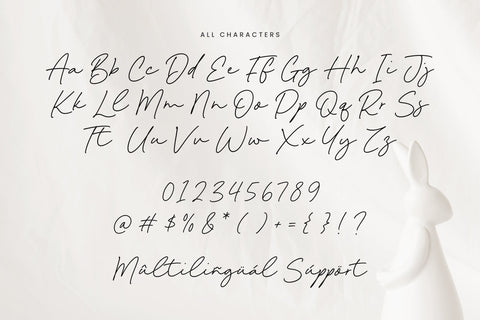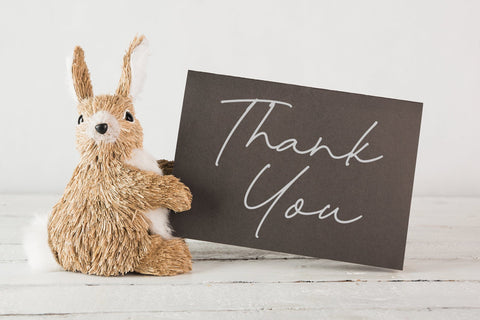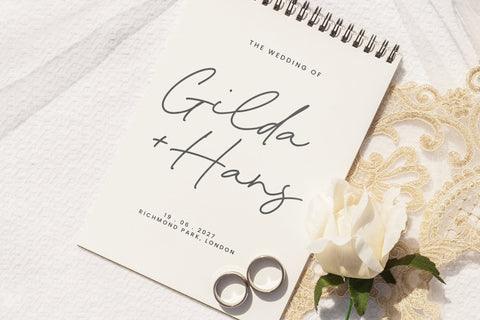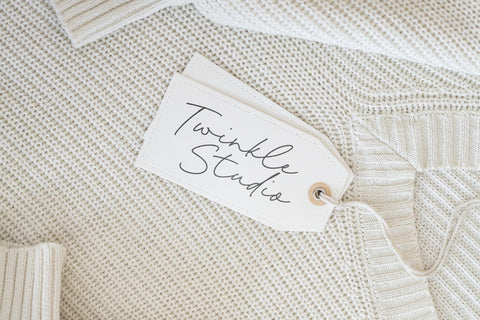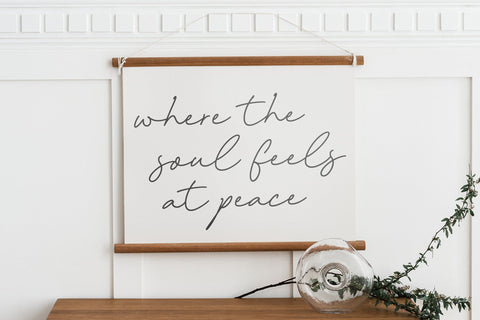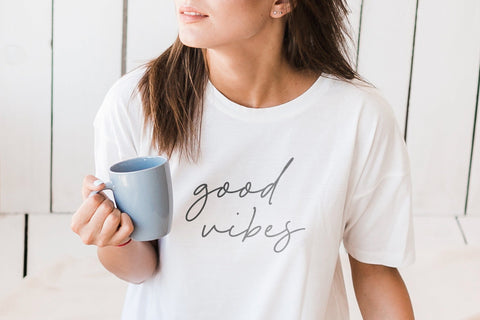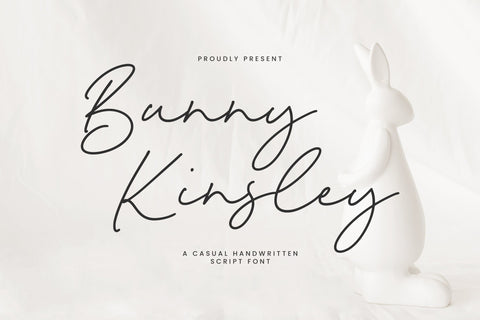
Bunny Kinsley - Casual Handwritten Script Font
Bunny Kinsley is a Casual Handwritten Script Font
Bunny Kinsley is a charming casual handwritten script font that captures a playful and whimsical feel. With its smooth strokes and natural flow, it adds a friendly touch to any project—perfect for invitations, branding, quotes, and social media graphics. Bunny Kinsley combines elegance with a carefree vibe, making it ideal for designs that need a warm, approachable aesthetic.
Bunny Kinsley Font also supports multilingualism